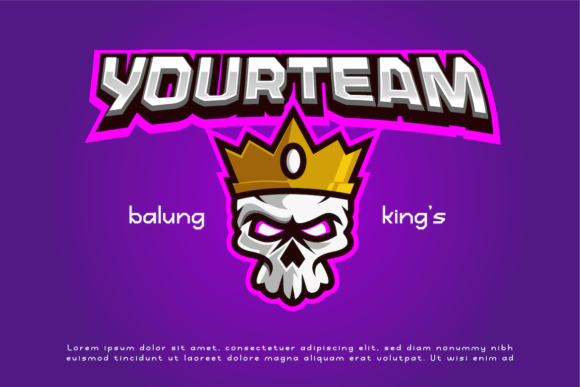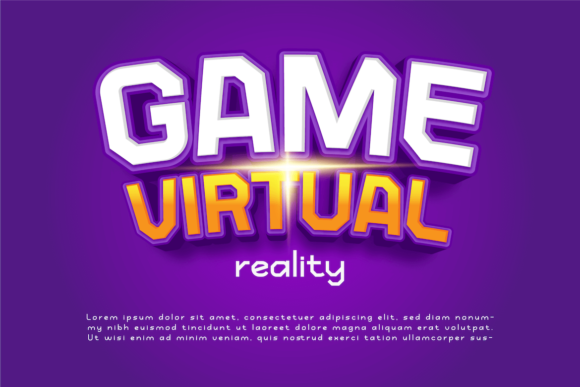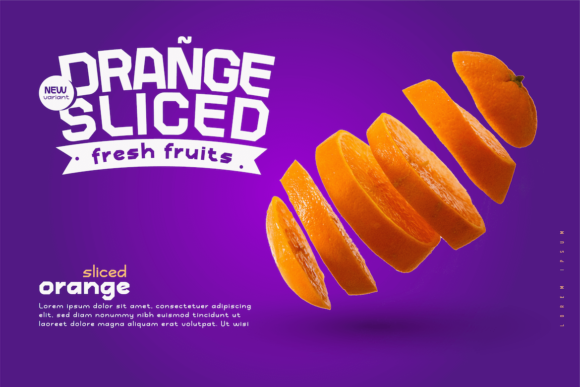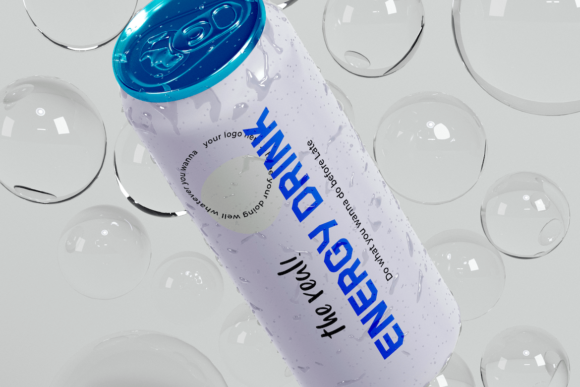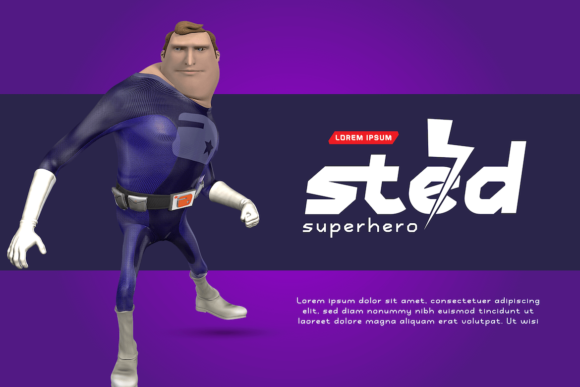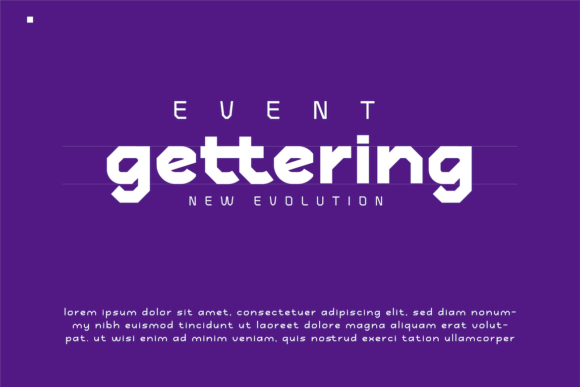
The Ultimate Guide to Gasted Font: Unleash Your Creative Potential
I’ll never forget the time I was working on a futuristic poster design project, and I just couldn’t find the right font to bring my vision to life. The client wanted something bold, modern, and eye-catching, but everything I tried seemed to fall flat. That’s when I stumbled upon the Gasted font, and let me tell you, it was a game-changer! 🤩
With its thick, futuristic lettering, Gasted instantly added a level of sophistication and coolness to my design that I’d been struggling to achieve. In this article, I’ll share my experience with Gasted, including what I love about it, some potential quirks to consider, and practical tips on how to use it in your designs.
An Honest Review of Gasted Font
What I Love About Gasted ✨
- 💥 **Impactful and attention-grabbing**: Gasted’s bold lettering makes it perfect for headlines, titles, and any design element you want to stand out.
- ✅ **Versatile**: Despite its futuristic vibe, Gasted can work well in a variety of design contexts, from posters and flyers to logos and branding.
- 🎨 **Highly customizable**: With OpenType features and glyphs, you can experiment with different styles and variations to make Gasted your own.
- 👍 **Easy to read**: Despite its thickness, Gasted remains surprisingly legible, even at smaller sizes.
While Gasted is an amazing font, there are a few things to keep in mind:
- 🤔 **Limited suitability for body text**: Due to its boldness, Gasted is best used for headlines and titles. For body text, you may want to pair it with a more traditional font.
- ⚠️ **Some letter combinations may require manual kerning**: As with any font, you may need to adjust kerning for certain letter pairs to achieve optimal spacing.
The Story Behind Gasted Font
Gasted was designed by a talented typographer who wanted to create a font that embodied the spirit of futurism and innovation. Inspired by sci-fi movies and video games, the designer aimed to craft a font that would transport users to a futuristic world. With its bold, geometric lettering, Gasted is the perfect result of this creative vision.
Q: Is Gasted suitable for body text?
A: While Gasted is an amazing font, it’s best used for headlines and titles due to its boldness. For body text, consider pairing it with a more traditional font.
Q: Does Gasted support OpenType features?
A: Yes, Gasted supports OpenType features, including ligatures, stylistic alternates, and glyphs. Experiment with these features to add more variety to your text.